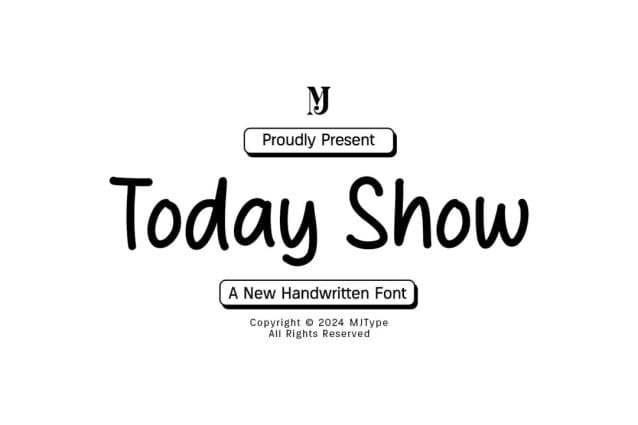
Today Show Font
Today Show Font is a cute, cartoon like handwritten font. Sweet, thin and friendly, this font will brighten up each of your designs. Add it confidently to your projects, and you won’t be disappointed.